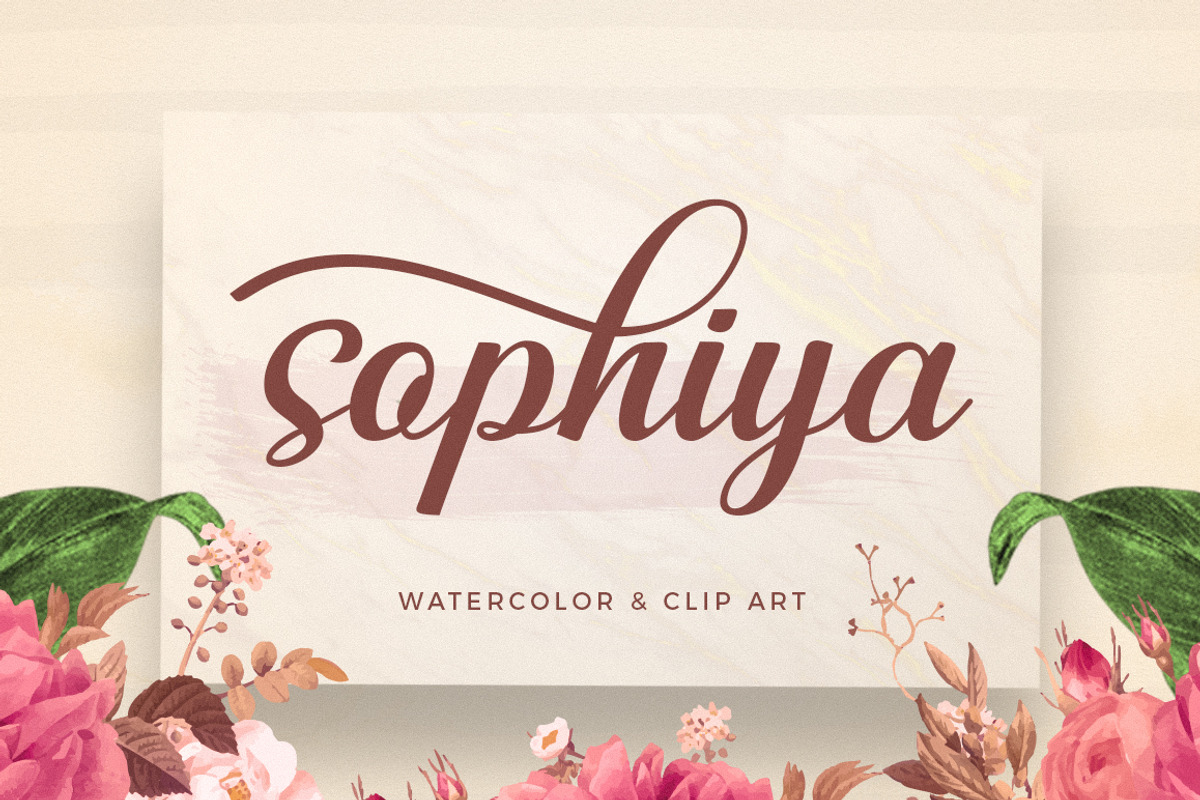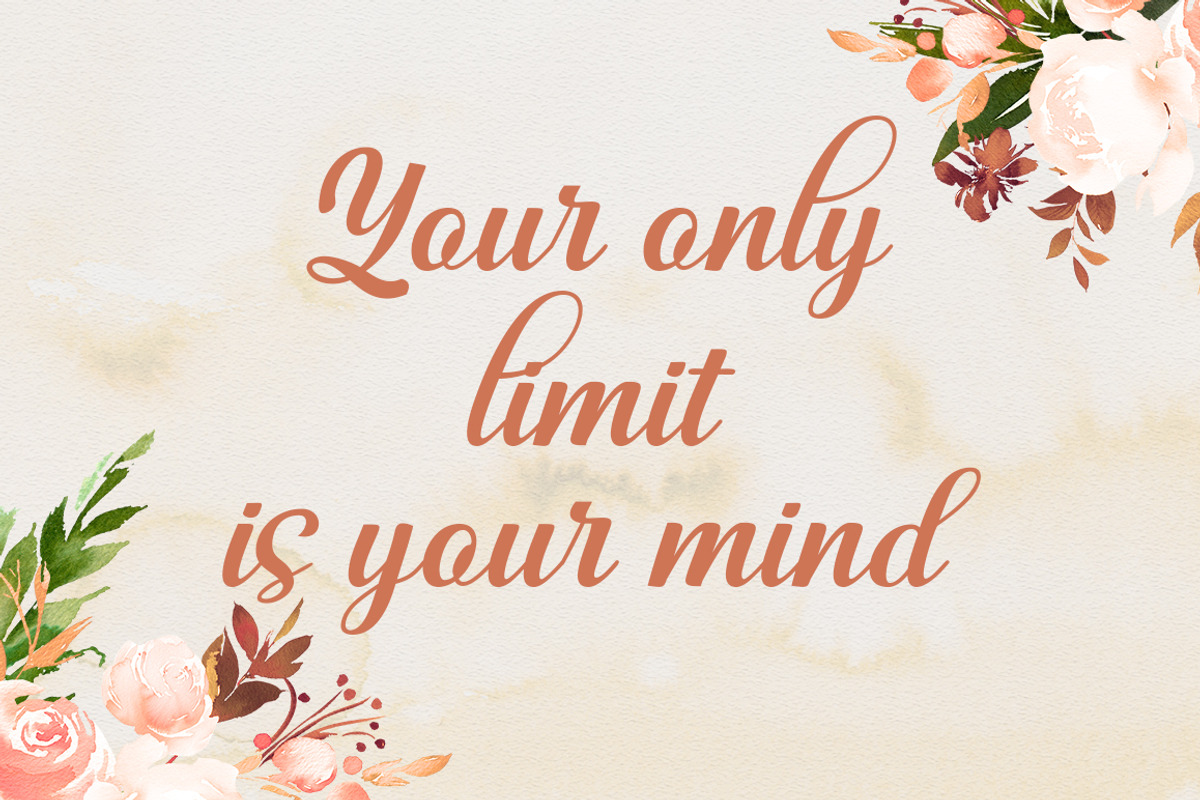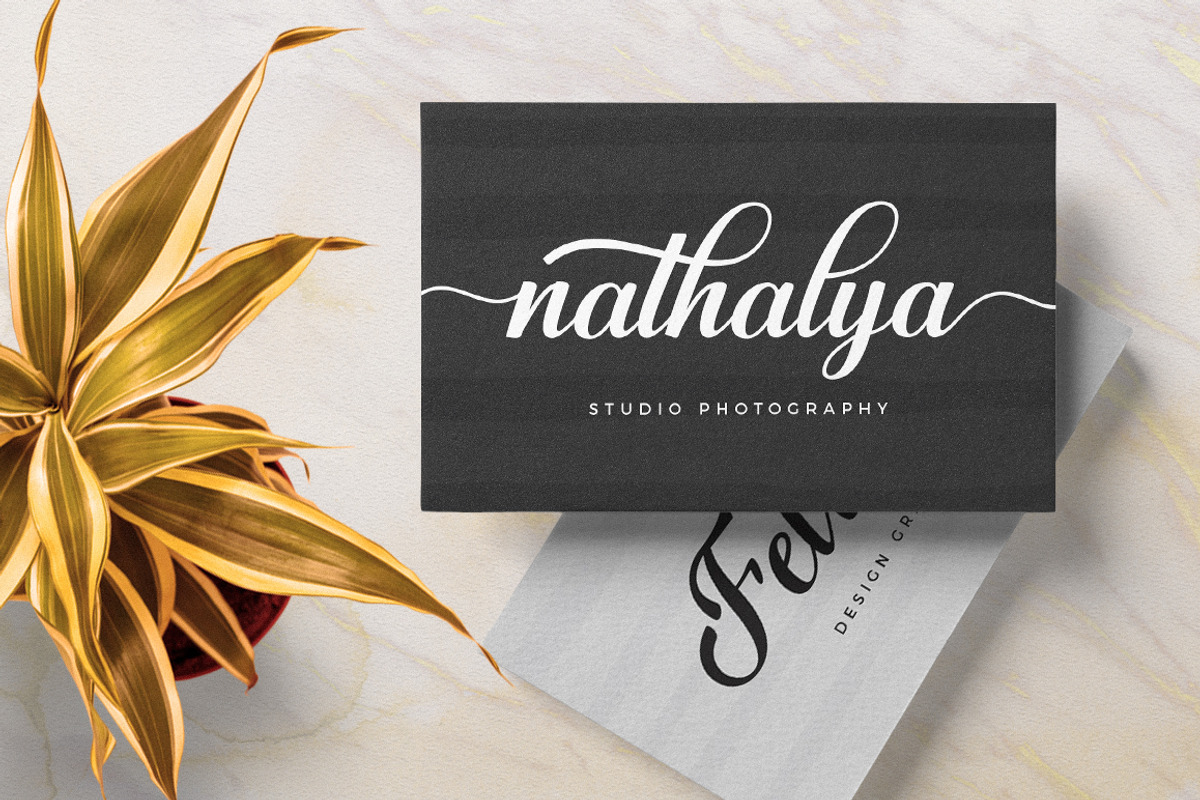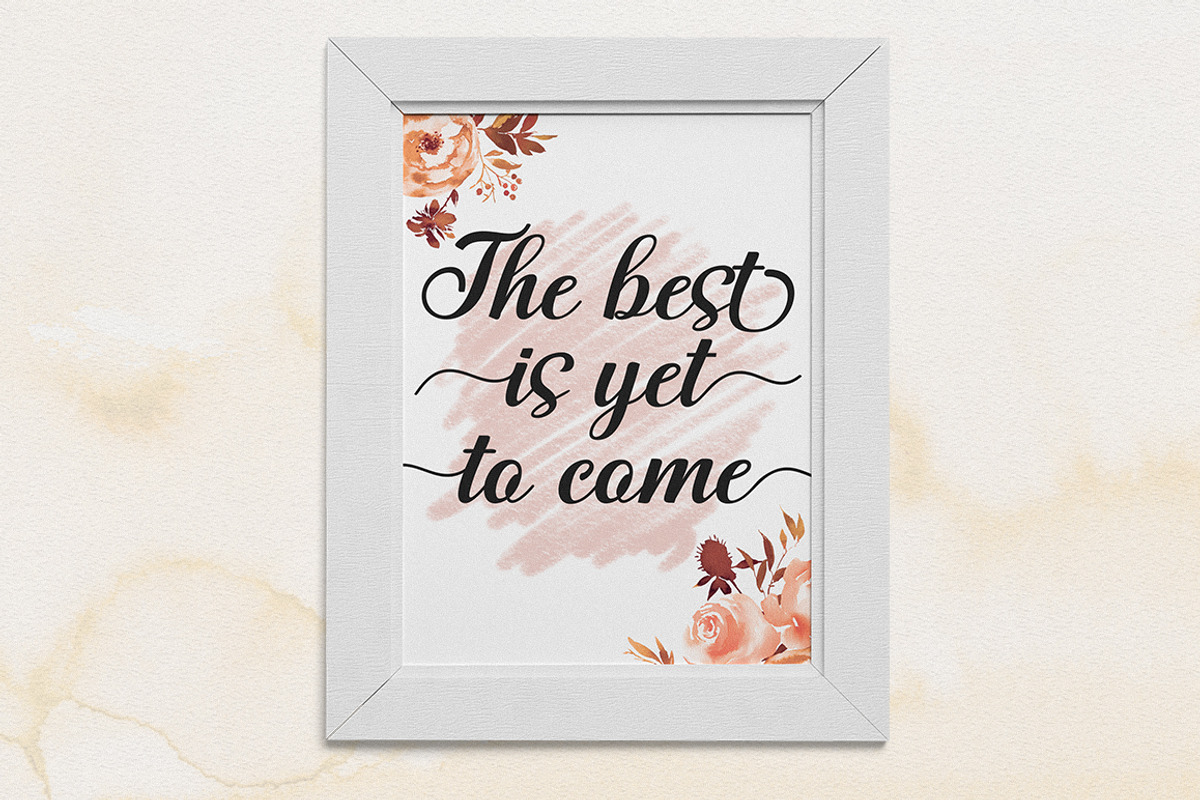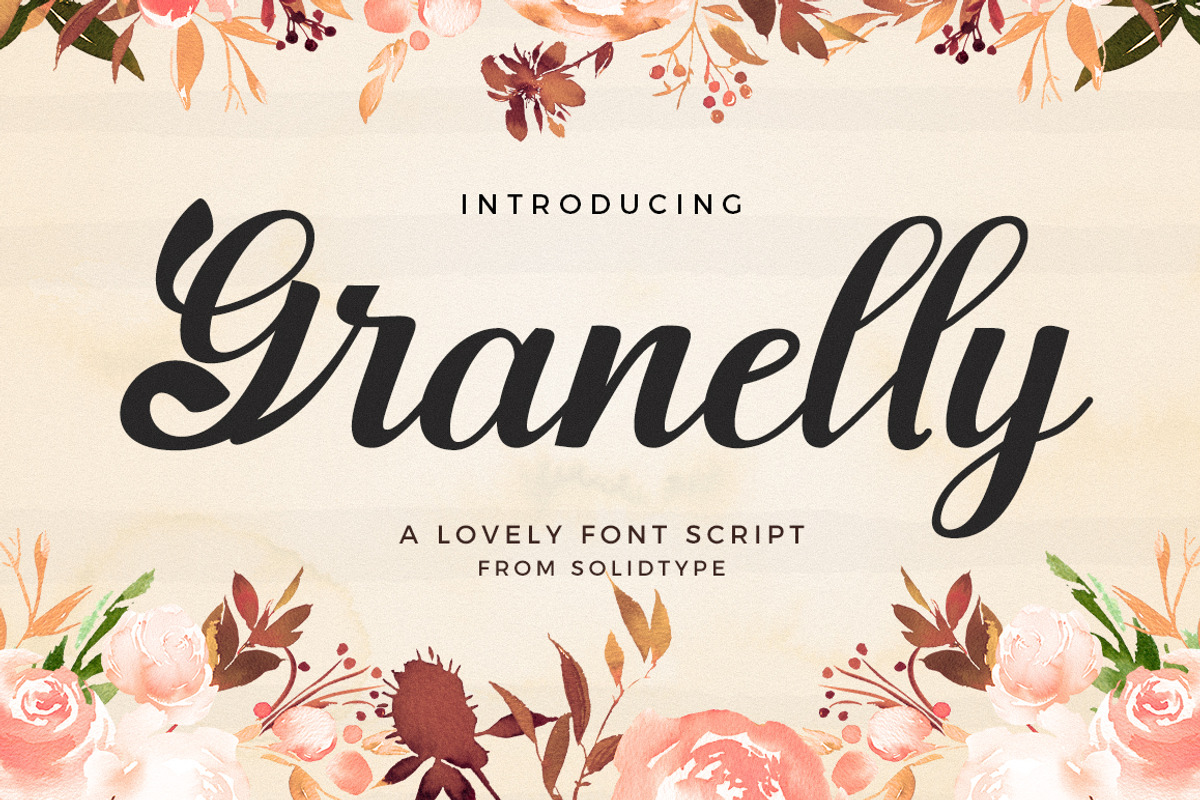
Granelly Script
Granelly is a modern, feminine handwritten font, with a variety of beginning and ending swashes, I hope you're drawn to a beautiful and aesthetic font to perfect your extraordinary project.
This font can be used easily and simply because there are many features in it which contain a complete set of uppercase and lowercase letters, large variety of punctuation marks, numbers, and multilingual support. The font also contains several binders and alternative styles of Stylistic Sets for those of you who have OpenType capable software (Photoshop / Illustrator / InDesign).
Granelly script is suitable for today's growing market designs, this font has a trendy, natural and soft style, with this font you can use.
opportunities in every moment of one of the extraordinary ways to highlight your best party celebration, because this font will be a support for purposes such as wedding invitations, parties, graduations, birthdays, meetings, etc.